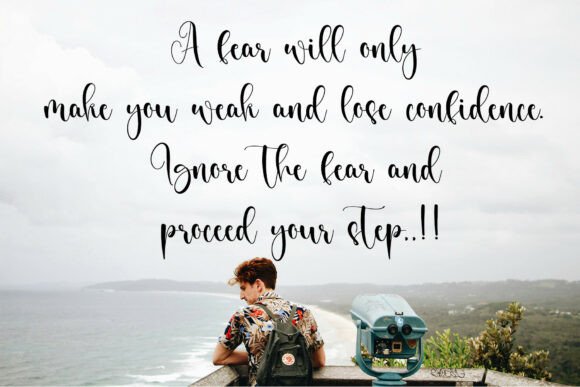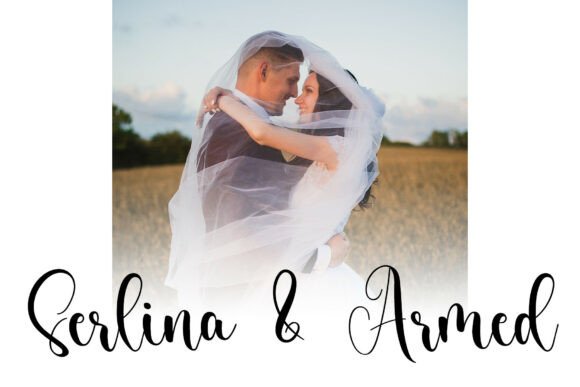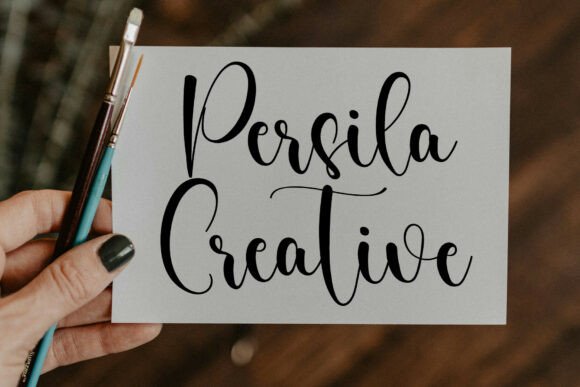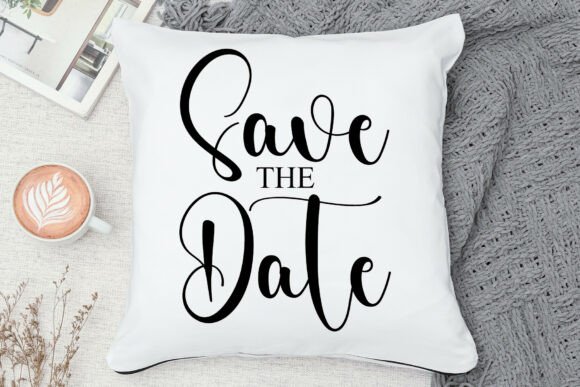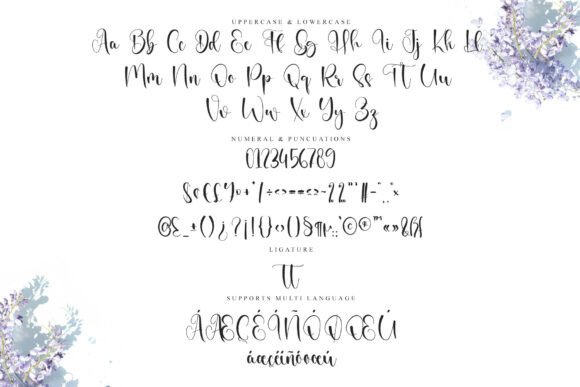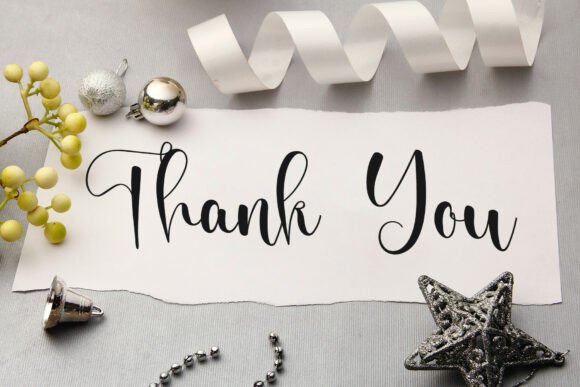
Introducing Crystalline Font: The Epitome of Elegance and Boldness
In the realm of typography, few fonts manage to strike a balance between elegance and boldness. Crystalline Font is one such exceptional typeface that seamlessly merges fluid strokes with a commanding presence, making it an ideal choice for designers and crafters seeking a font that exudes confidence and sophistication.
The Design Philosophy Behind Crystalline
Crystalline is a bold and elegant script handwriting font that has been meticulously crafted to convey a sense of authority while maintaining a stylish demeanor. Its design philosophy revolves around the concept of combining smooth curves with dynamic flows, creating a visually appealing effect that captures the essence of both refinement and strength.
Key Features of Crystalline Font
- Fluid Strokes: One of the defining characteristics of Crystalline is its fluid strokes that lend a graceful touch to any design. These strokes are carefully designed to ensure a smooth flow, making the font highly readable and aesthetically pleasing.
- Commanding Presence: Despite its elegant appearance, Crystalline boasts a commanding presence that is hard to overlook. This makes it an excellent choice for projects that require a font to make a statement.
- Smooth Curves and Dynamic Flow: The font’s smooth curves and dynamic flow contribute to its sophisticated look. These elements ensure that Crystalline can be used in a variety of design contexts, from luxury branding to high-end product packaging.
Applications of Crystalline Font
Given its unique blend of elegance and boldness, Crystalline Font finds applications in a wide range of design projects. Here are some of the key areas where this font truly shines:
- Branding and Logo Design: For businesses looking to create a strong brand identity, Crystalline can be a valuable asset. Its authoritative yet stylish appearance makes it perfect for logos, business cards, and other branding materials.
- Advertising and Marketing: In advertising and marketing, capturing the audience’s attention is crucial. Crystalline’s commanding presence ensures that your message is conveyed with impact, making it suitable for ad campaigns, posters, and flyers.
- Packaging Design: For luxury products, packaging plays a vital role in conveying the brand’s image. Crystalline can add a touch of sophistication to product packaging, enhancing the overall unboxing experience.
- Digital Media: In the digital realm, Crystalline can be used in website headers, social media graphics, and video intros to add a level of professionalism and style.
Why Choose Crystalline Font?
When it comes to selecting a font for your design project, there are numerous options available. However, Crystalline stands out for several reasons:
- Versatility: Crystalline’s versatility is one of its strongest selling points. It can be used in both digital and print designs, adapting seamlessly to different contexts.
- Uniqueness: In a sea of generic fonts, Crystalline offers a unique blend of elegance and boldness that can set your design apart from the competition.
- Legibility: Despite its elegant and bold appearance, Crystalline maintains high legibility, ensuring that your message is conveyed clearly.
Crystalline Font is a remarkable typeface that embodies both elegance and boldness, making it an invaluable asset for designers and crafters. Its fluid strokes, commanding presence, and sophisticated appearance ensure that it can elevate any design project, adding a touch of personality and power. Whether you’re working on branding, advertising, packaging, or digital media, Crystalline is a versatile choice that can help you achieve your design goals with style and authority.